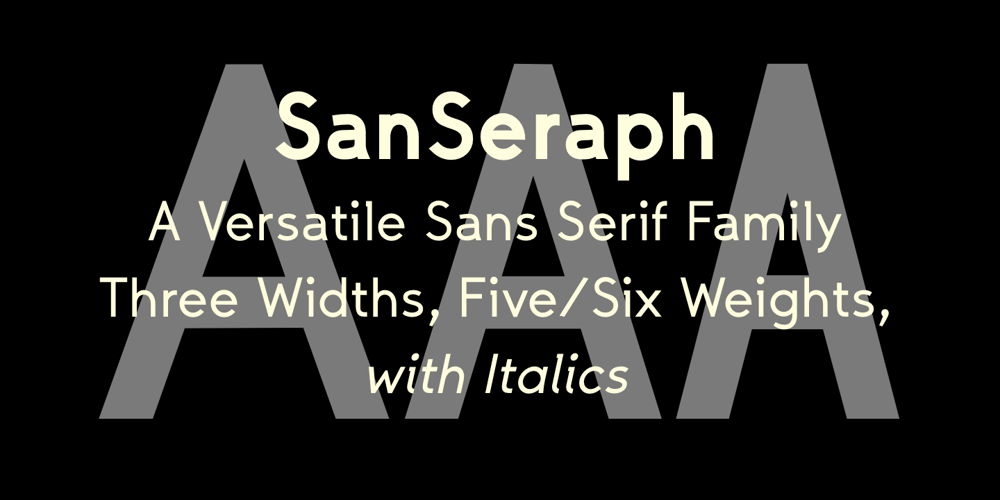
San Seraph Font Family was designed by Robert Schenk and published by Ingrimayne Type. San Seraph contains 32 styles and family package options. SanSeraph is a simple, clean, sans-serif font family that is highly legible and useful for both text and some display purposes. It is not meant to stand out but to blend in and let the reader focus on the meaning of the text rather than the look of the text. The family has 32 styles composed of three widths, two with five weights and the third with six, and each of these 16 has an italics style.The family has two ways to get fractions. A few fractions are preformed and are accessed with the OpenType discretionary ligatures feature. The OpenType fraction feature uses superscripted and subscripted numbers to create any fraction.